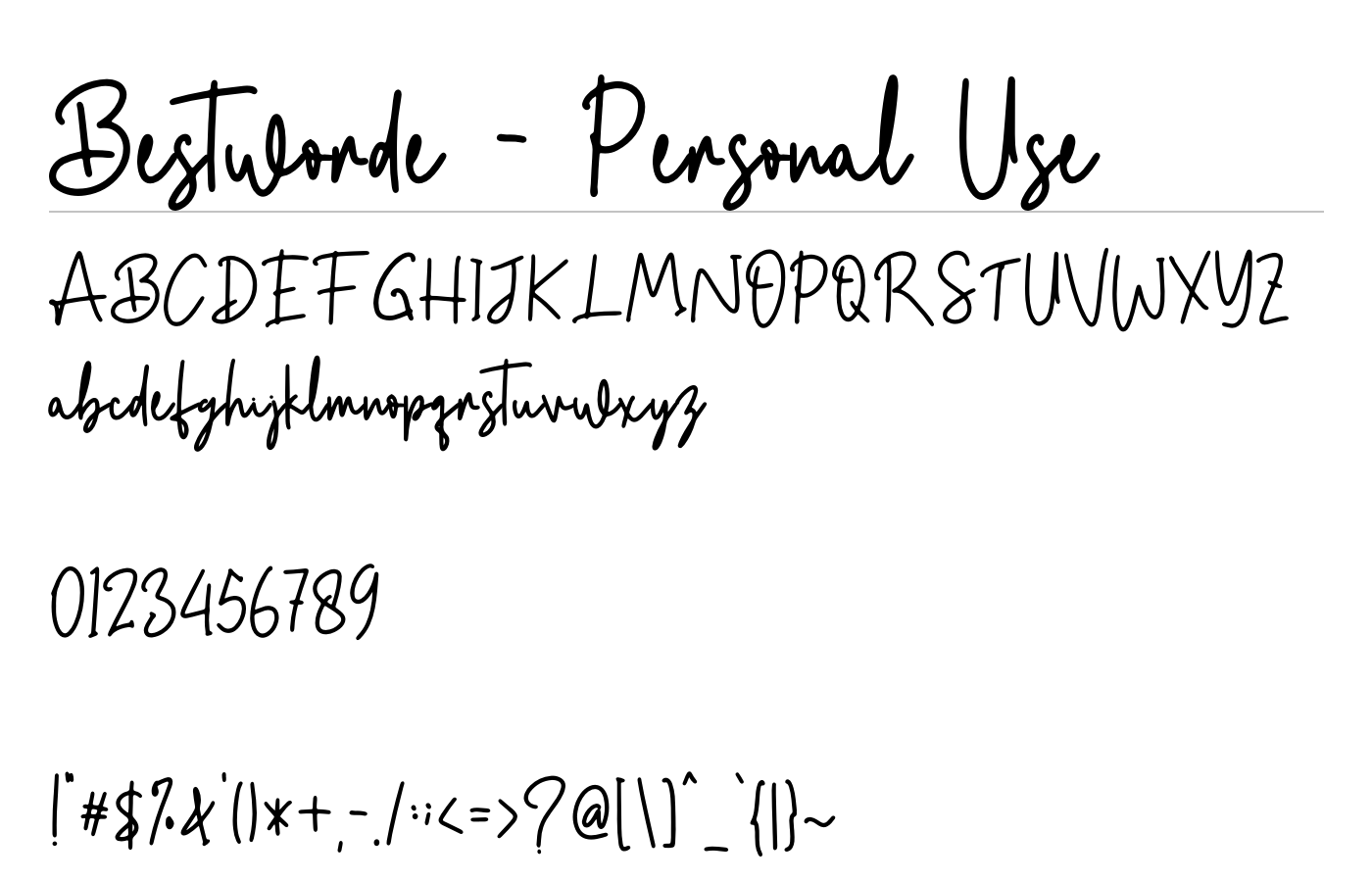
Bestworde is a playful, hand-drawn script font with a casual and friendly vibe. Its tall, slender letterforms and flowing strokes give it an approachable personality, perfect for informal branding, personal projects, or creative headlines that need a personal touch. This font works well where warmth and uniqueness are desired, such as invitations, social media graphics, and lifestyle content.
Bestworde - Personal Use Font
About Bestworde - Personal Use Font